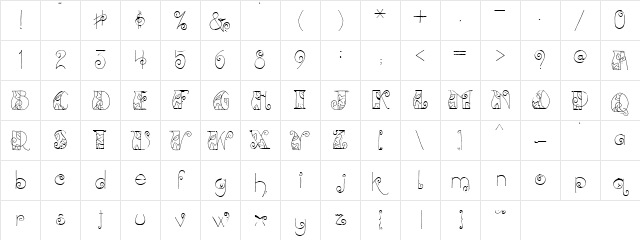
PC September Regular
Design Context for PC September Typeface
PC September is a composed and adaptable typeface that performs quietly and consistently across a wide range of design contexts.